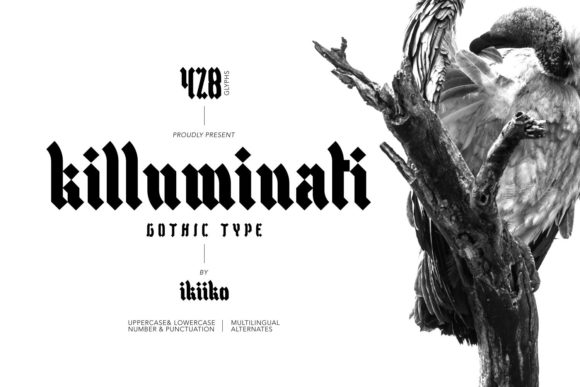
Introducing Killuminati Font, the ultimate choice for those seeking a captivating and unique typography experience. With its modern blackletter style and simple English old type design, this font is sure to elevate your creative projects to new heights.
Inspired by the iconic gothic and classic rock band logos, Killuminati Font exudes a sense of power and edginess. Its bold and striking appearance, combined with the perfect balance of sharp and curved corners, will instantly grab the attention of your audience.
Whether you're creating a poster for a special event, designing a stencil for artistic purposes, crafting a mesmerizing logotype, curating a captivating magazine layout, or even adding a touch of style to fashion-related content, Killuminati Font has got you covered. Its versatility knows no bounds.
But what sets Killuminati Font apart from the rest? It's the little details that make a big difference. This font is PUA encoded, granting you effortless access to an extensive collection of amazing glyphs and ligatures. Let your creativity run wild as you explore the endless possibilities that this font offers.
Imagine the impact of displaying your message with Killuminati Font on a digital LED display. With its captivating presence and eye-catching style, your content will demand attention and leave a lasting impression on anyone who lays eyes on it. Stand out from the crowd and make a bold statement with this font.
Embrace the power of emotion and creativity. Killuminati Font is more than just a typeface; it's a storytelling tool that evokes a wide range of emotions. From the nostalgia of classic rock to the rebellious spirit of gothic aesthetics, this font adds a unique personality to your projects.
Don't settle for ordinary. Choose Killuminati Font and unlock a world of possibilities. Let your imagination soar as you captivate and engage your audience with this remarkable font. Elevate your designs and leave a lasting impact with the font that's designed to impress.